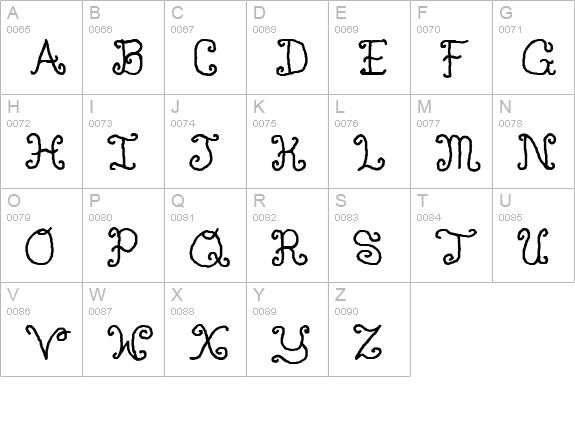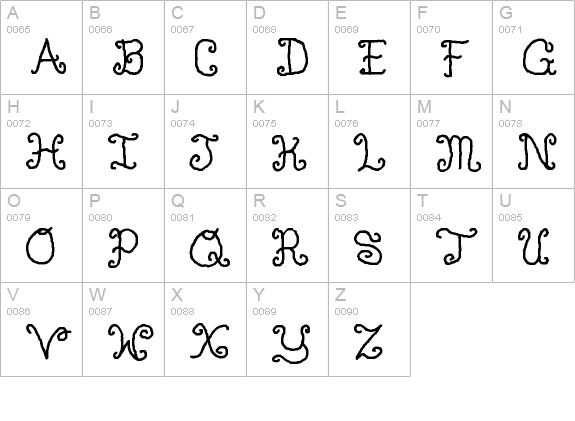
Single Gyrl Font Details
Introducing Single Gyrl, a stunning and versatile font that embodies the essence of feminine sophistication. Designed with meticulous attention to detail, Single Gyrl captures the essence of elegance and grace, making it the perfect choice for a wide range of design projects. With its delicate curves and flowing lines, Single Gyrl adds a touch of romance and refinement to any text. Whether used for invitations, branding, stationery, or web design, this font will elevate your creations to new heights of beauty and style. But what truly sets Single Gyrl apart is its accessibility. We believe that great design should be available to everyone, which is why Single Gyrl is freely available to download at FontsMarket.com. This means that you can unleash your creativity without any limitations or barriers, making Single Gyrl the go-to font for both personal and commercial projects. So go ahead and download Single Gyrl today, and let its timeless beauty and versatility inspire your next creative endeavor. With its effortless charm and stunning aesthetics, Single Gyrl is bound to become an indispensable tool in your design arsenal. Don't miss out on the opportunity to experience this font's captivating allure – get your hands on Single Gyrl now and watch your designs come to life with every stroke of the keyboard.